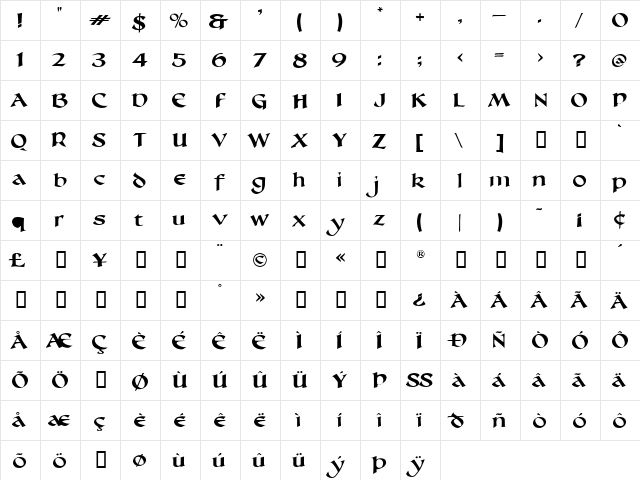
LHF Seranoa BETA Regular
LHF Seranoa BETA is a composed and adaptable typeface that performs quietly and consistently across a wide range of design contexts.